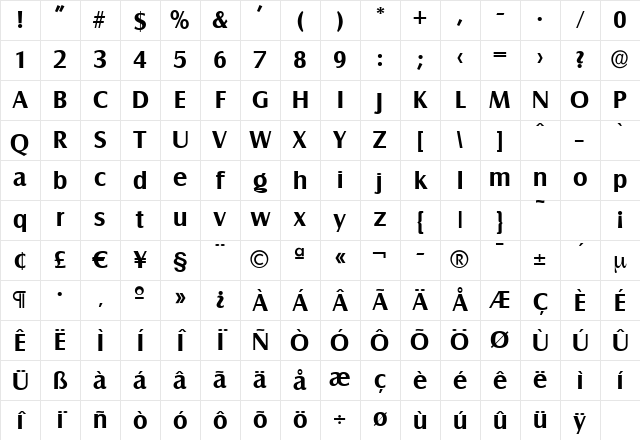
BillyBecker Bold
BillyBecker Family
Design Context for BillyBecker
BillyBecker is a composed and adaptable typeface that performs quietly and consistently across a wide range of design contexts. Its bold stroke weight gives it real presence on the page.
Pro Tip: Use BillyBecker in both headline and body roles to test its range before committing to a single application.